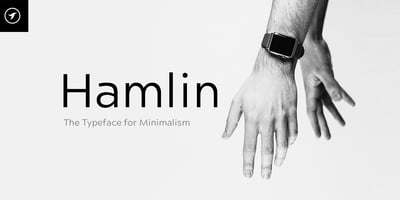
Hamlin Nova Font Family was designed by Jean Johnson and published by Designova. Hamlin Nova contains 8 styles and family package options. HAMLIN is a modern Sans Serif typeface dedicated to minimalism as new design trend. The concept of HAMLIN is inspired from some of the classic geometric fonts but with it’s own uniqueness, depth and identity.HAMLIN will be best suited for creating amazing headlines, clean body texts, minimal logo types and anything that your imagination can bring to life. If you add some letter spacing you will get a unique style that you always find in high profile fashion web stores and minimal portfolio websites. The font comes with 4 weights with all formats including Web Fonts.